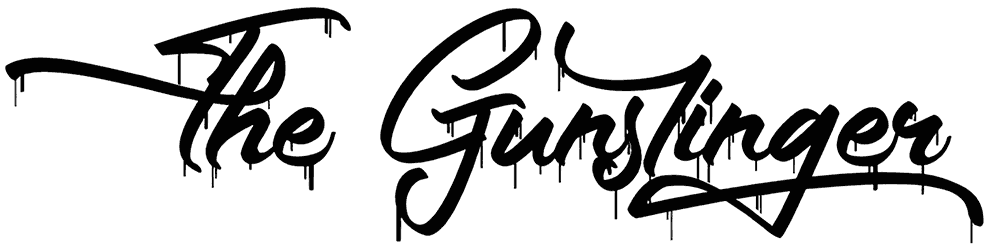
The Gunslinger Waterdrop Font
This particular graffiti font comes with slim spray-paint characters, the calligraphy style adds a natural hand-drawn feel. The Gunslinger Waterdrop is the best street art look for your typography, and including it in CD…
This particular graffiti font comes with slim spray-paint characters, the calligraphy style adds a natural hand-drawn feel. The Gunslinger Waterdrop is the best street art look for your typography, and including it in CD covers, posters, flyers, magazines, and branding will gain attention, especially with the dripping grungey design!